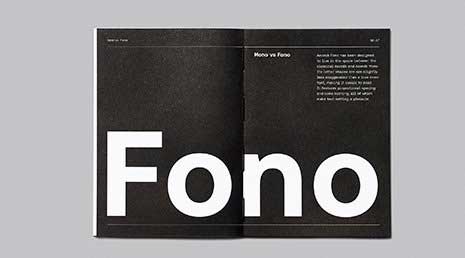
Aeonik Fono Font Family
Aeonik Fono has been designed to live in the space between the classical Aeonik and Aeonik Mono. Its letter shapes are are slightly less exaggerated than a true mono font, making it easier to read. It features proportional spacing and some kerning, all of which make text setting a pleasure. It is available in 7 weights, ranging from Thin to Black. The extensive language support allows type setting in most European languages written with the Latin script.
Just like the original Aeonik, Aeonik Fono features close apertures with perpendicular stroke endings, clear letter shapes. To emulate the mono feel, long serifs have been added to letters like ‘i’, ‘j’, ‘l’, and ‘I’ to help fill out the space. Many might know Aeonik for its numerous stylistic sets. Aeonik Mono and Fono bring their own twist to this game, featuring many different boxed and circled numerals, as well as alternates for the characters ‘a’, ‘f’, ‘y’, ‘J’ ‘Q’, ‘7’ and ‘&’. In addition to these, there are three sets of arrows included: 1. simple small arrows; 2. simple uppercase arrows; 3. navigational arrows.
Aeonik Fono is particularly suitable for editorial and branding projects, taking grotesque to another dimension with its more interesting proportions and oversized serifs. It can easily be used side by side with the classical Aeonik in projects that require a more complex or creative typographical hierarchy.